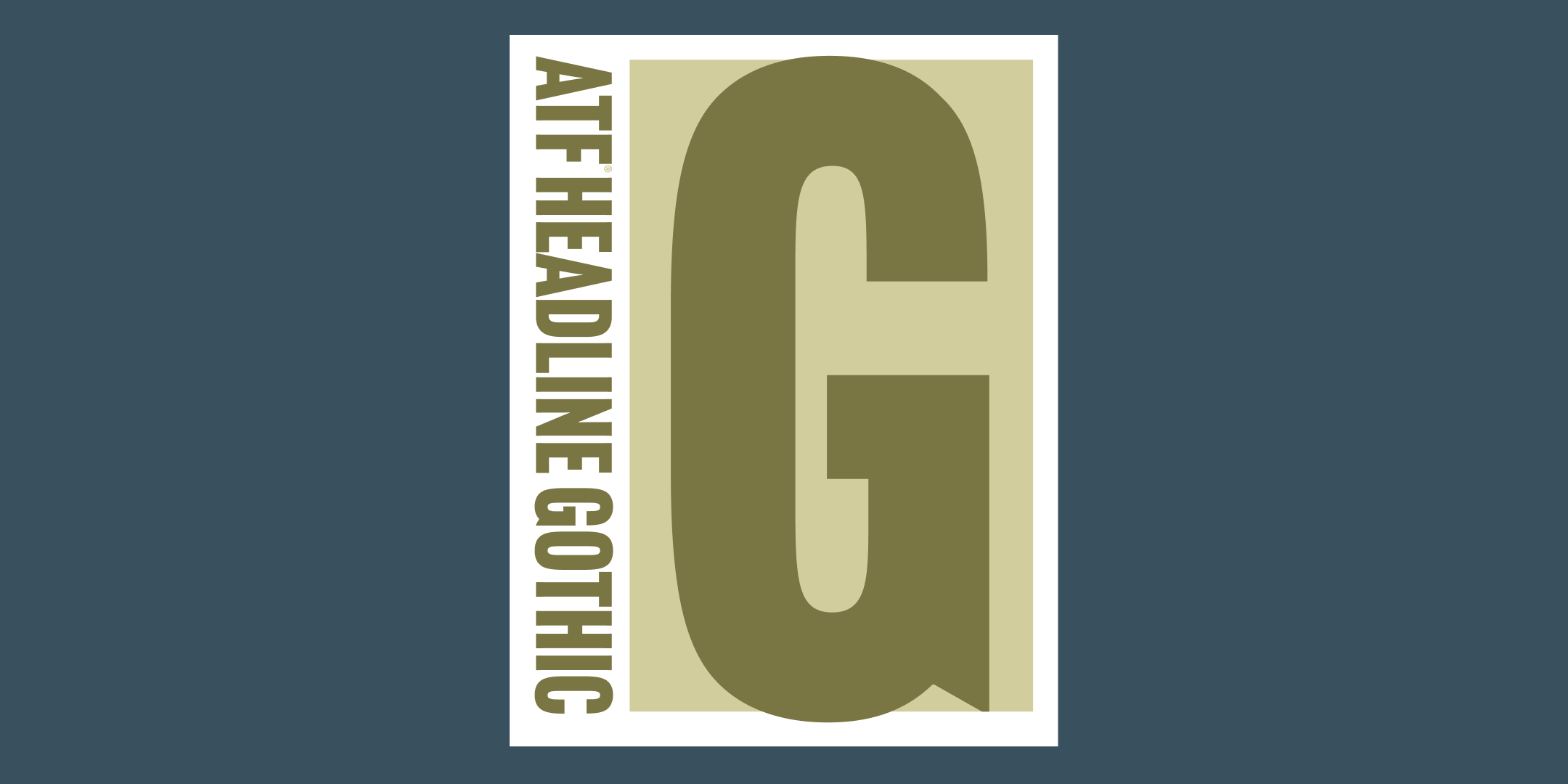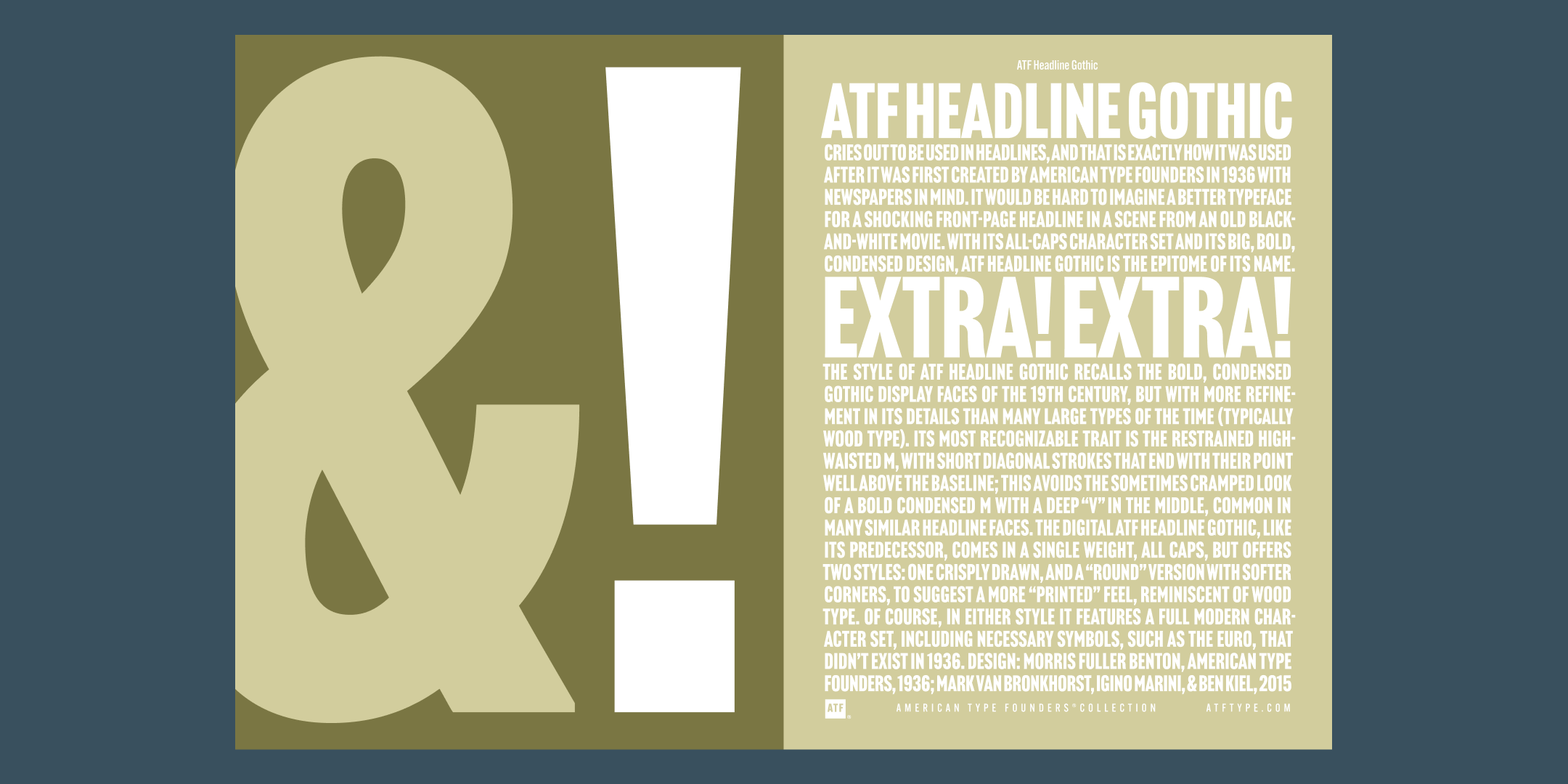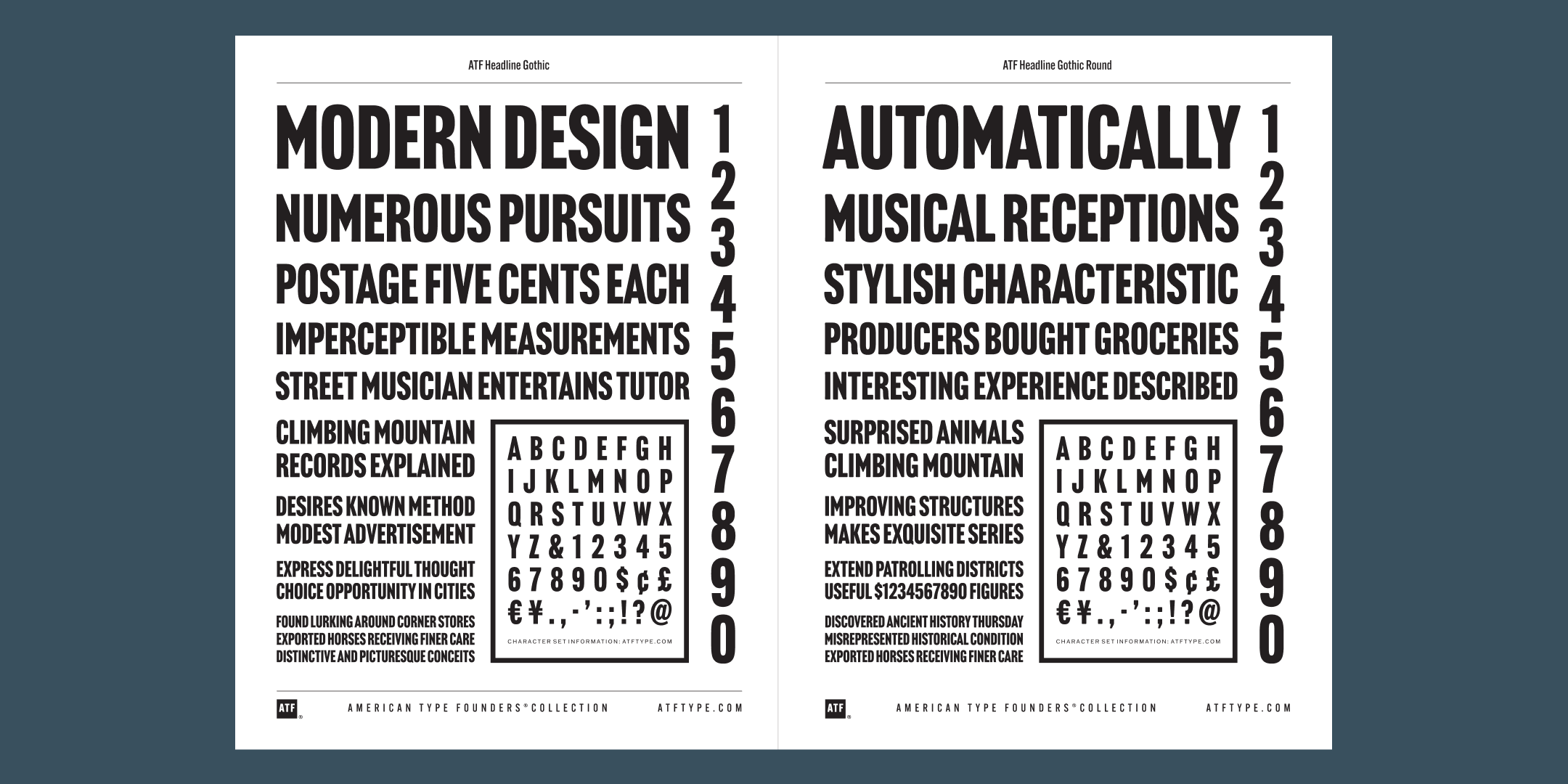
Headline Gothic
By Morris Fuller Benton, Mark Van Bronkhorst, Igino Marini & Ben Kiel
Headline Gothic Regular
Headline Gothic Round
Headline Gothic Rough
Headline Gothic Rough No. 1
Headline Gothic Rough No. 2
ATF Headline Gothic cries out to be used in headlines, and that is exactly how it was used after it was first created by American Type Founders in 1936 with newspapers in mind. It would be hard to imagine a better typeface for a shocking front-page headline in a scene from an old black-and-white movie. With its all-caps character set and its big, bold, condensed design, ATF Headline Gothic is the epitome of its name. Extra! Extra!
The style of ATF Headline Gothic recalls the bold, condensed gothic display faces of the 19th century, but with more refinement in its details than many large types of the time (typically wood type). Its most recognizable trait is the restrained high-waisted M, with short diagonal strokes that end with their point well above the baseline; this avoids the sometimes cramped look of a bold condensed M with a deep “V” in the middle, common in many similar headline faces. The digital ATF Headline Gothic, like its predecessor, comes in a single weight, all caps, but offers two styles: one crisply drawn, and a “Round” version with softer corners, to suggest a more “printed” feel, reminiscent of wood type. Of course, in either style it features a full modern character set, including necessary symbols, such as the Euro, that didn’t exist in 1936.